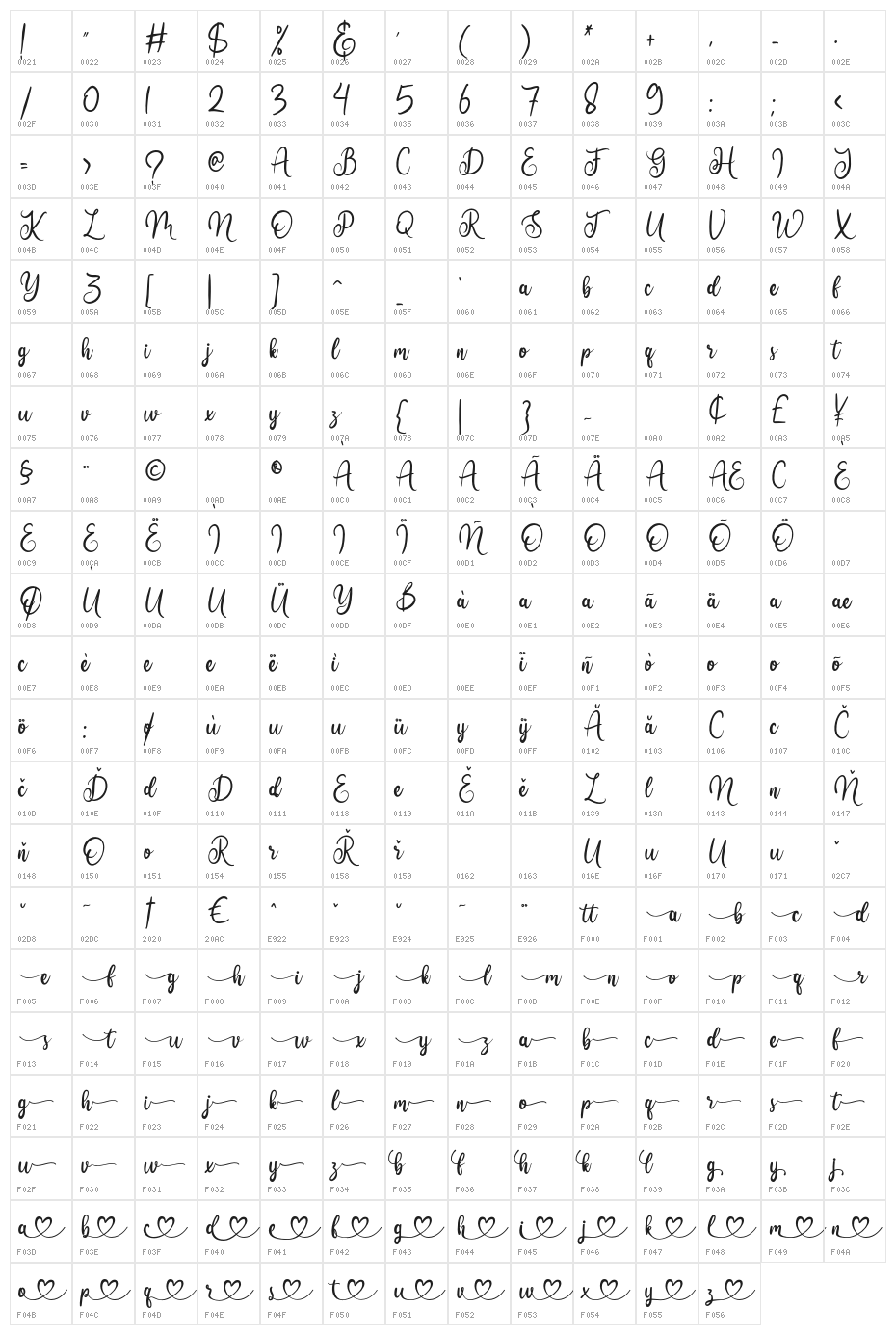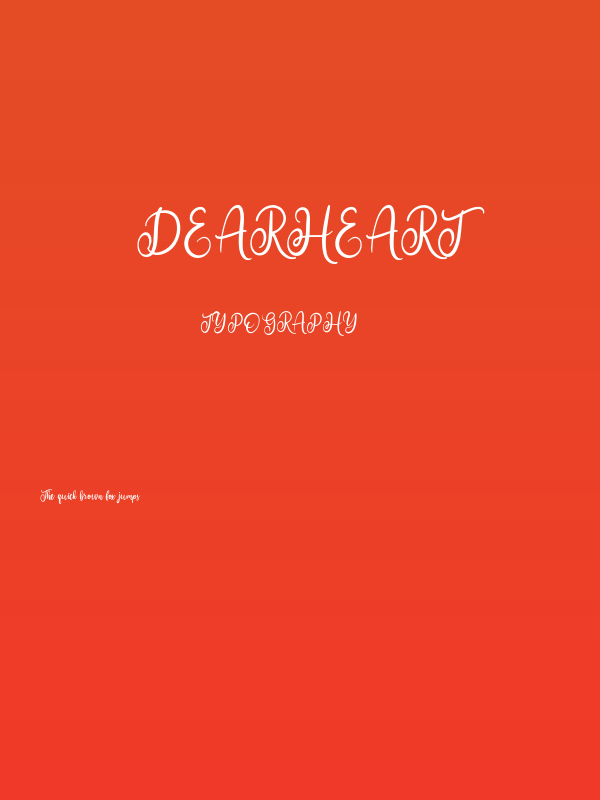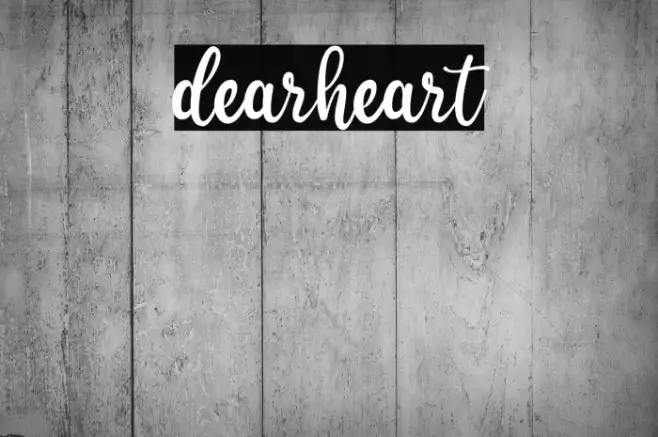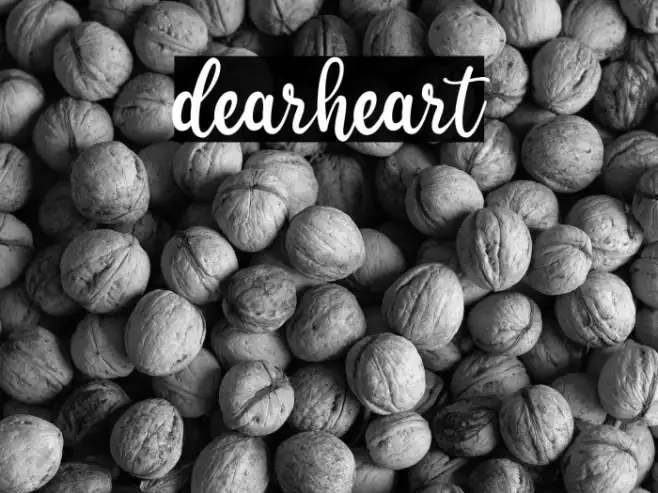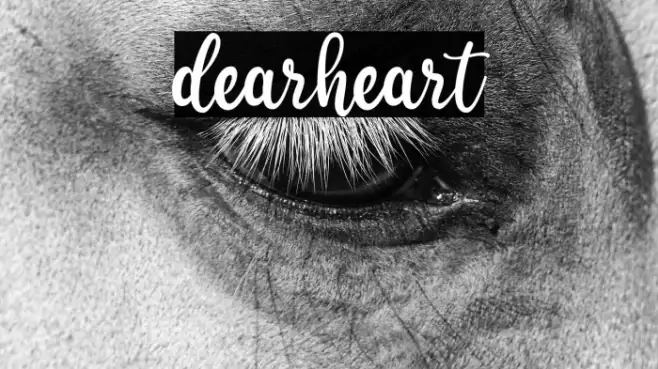
dearheart Font
dearheart Description
This font exudes a charming and elegant script style, characterized by its flowing, cursive letterforms. The uppercase letters are ornate with graceful loops and swirls, while the lowercase letters maintain a smooth, connected appearance. The numerals are consistent with the script style, featuring rounded edges and a playful flair. Special characters are integrated seamlessly, maintaining the overall aesthetic. The font's design is both sophisticated and approachable, making it suitable for a variety of creative applications.